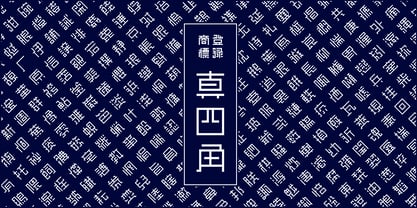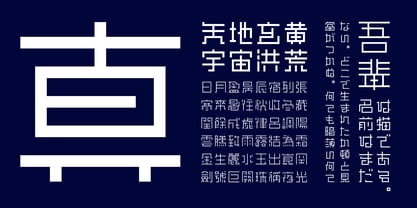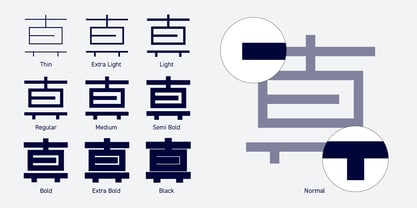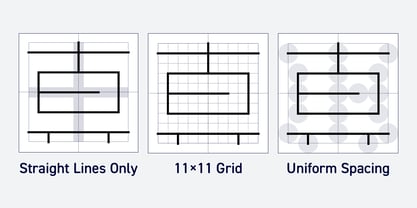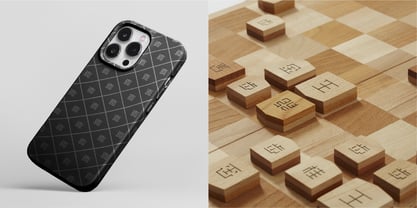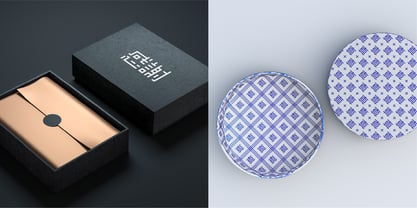
Mashikaku
von moji.design
Die Schriftfamilie Mashikaku wurde von Yoshiyuki Kano entworfen und von moji.design veröffentlicht. Mashikaku enthält 9 Stile und Familienpaketoptionen. Mehr über diese Familie
The "Masumi Square Typeface" is a font inspired by the decorative "Kakuji" characters from the Edo period. Its design reconstructs the geometric formation of square shapes using only horizontal and vertical lines, reinterpreted through a modern design lens to create a simple yet dynamic and bold impression. By expressing the essence of kanji characters using minimal lines, the typeface achieves both simplicity and individuality. With nine weights ranging from Thin to Black, it is versatile and can be used for everything from delicate text arrangements to bold headlines. Rooted in the Edo-era aesthetic of "incorporating text into daily life," this typeface adds presence to spaces and products across various applications, such as signage, packaging, websites, and interior designs.
Designer: Yoshiyuki Kano
Foundry: moji.design